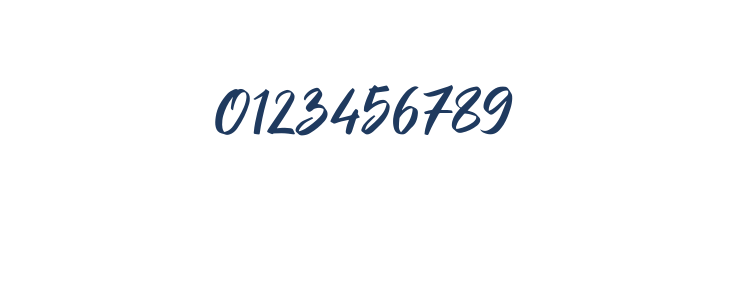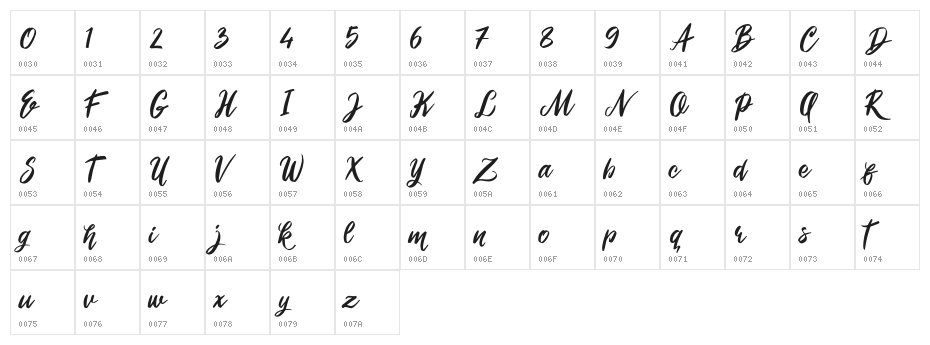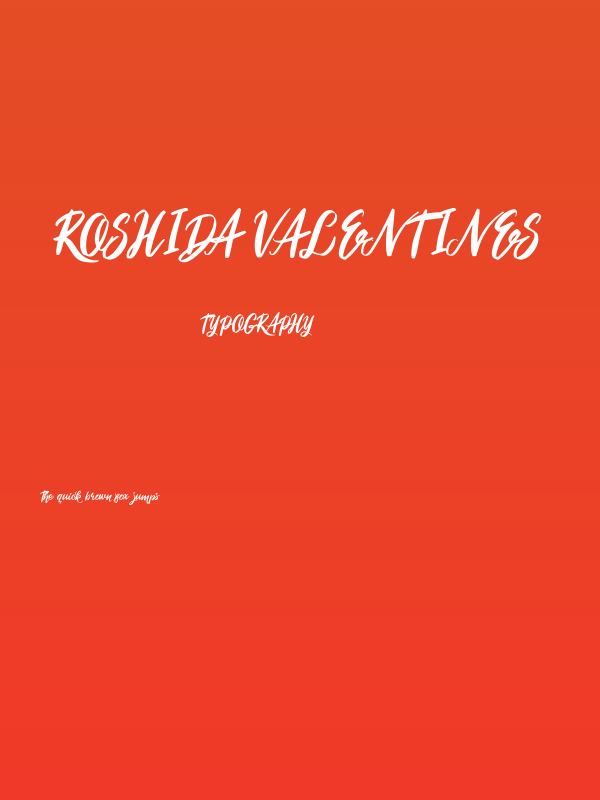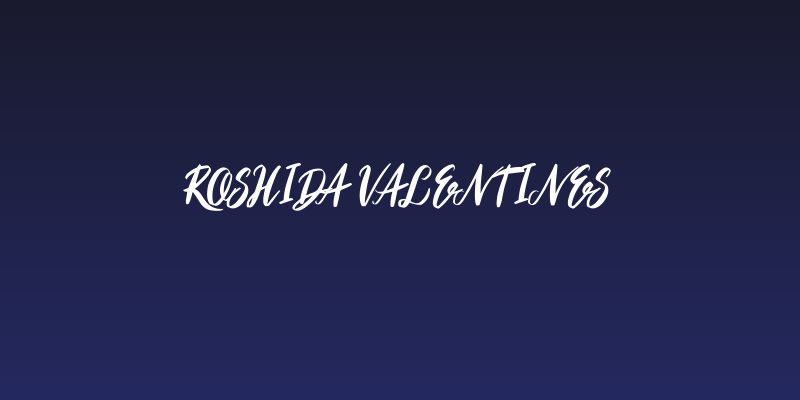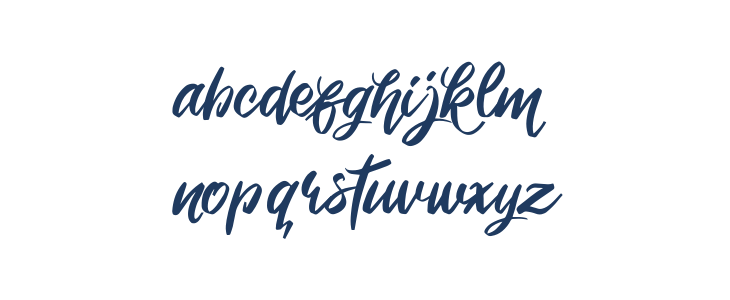
Roshida Valentines Font
Roshida Valentines Description
This font exudes a romantic and elegant flair, characterized by its flowing, cursive style that mimics the fluidity of handwriting. The letters are interconnected, creating a seamless and harmonious appearance. The strokes are bold and expressive, with varying thickness that adds a dynamic contrast to each character. The uppercase letters are particularly ornate, with flourishes that enhance their decorative appeal. The lowercase letters maintain a consistent rhythm, contributing to the overall cohesiveness of the design. This font is perfect for projects that require a touch of sophistication and charm, such as wedding invitations, greeting cards, and branding materials. Its artistic nature makes it suitable for conveying emotions and personal messages.